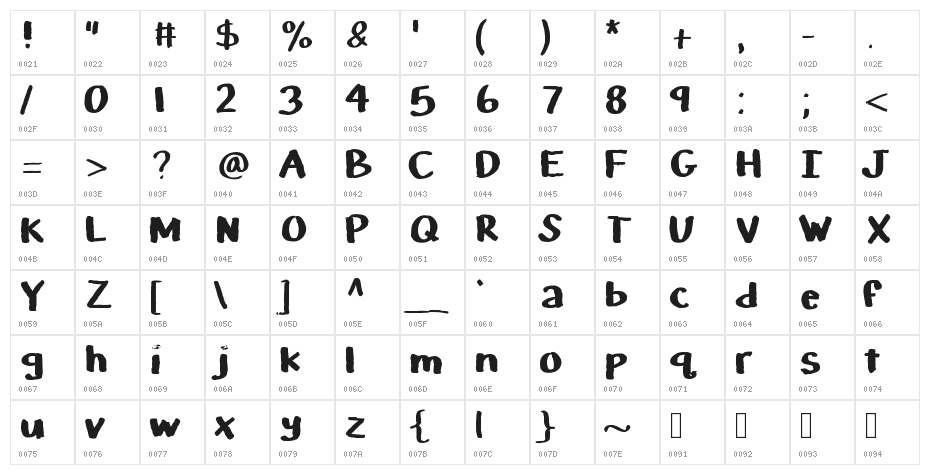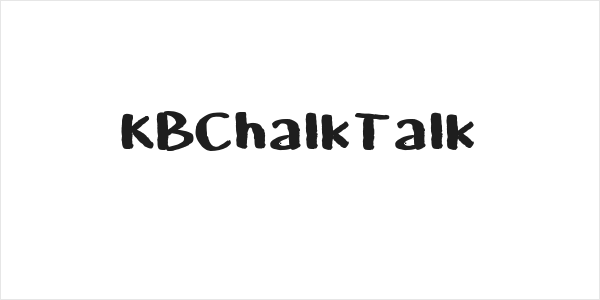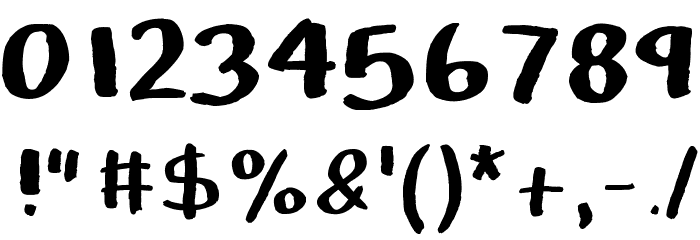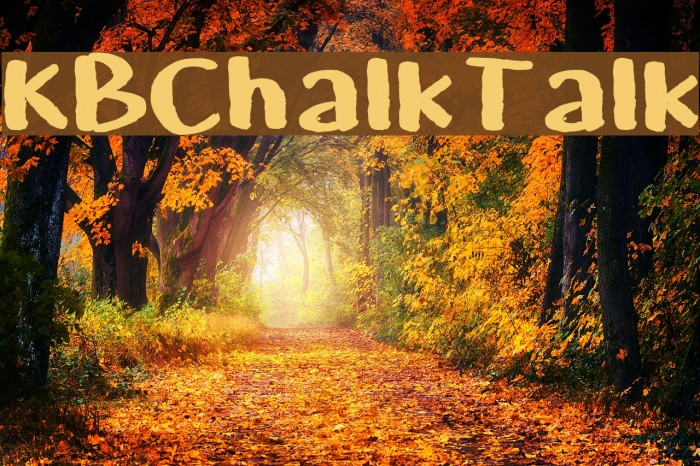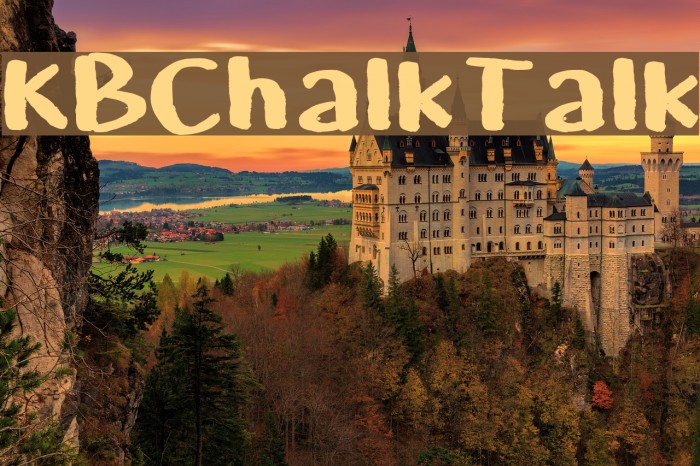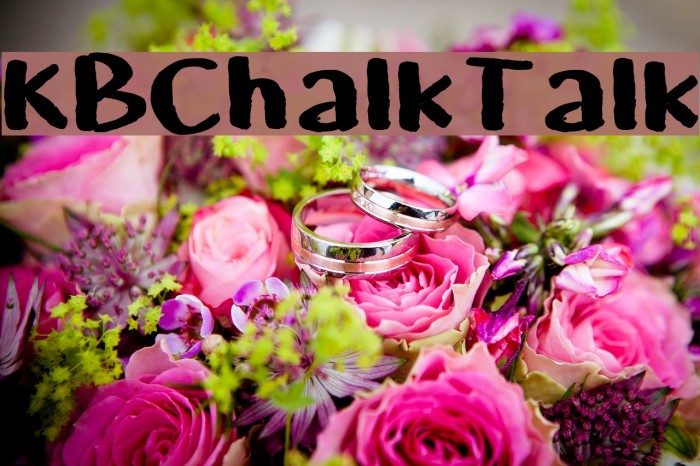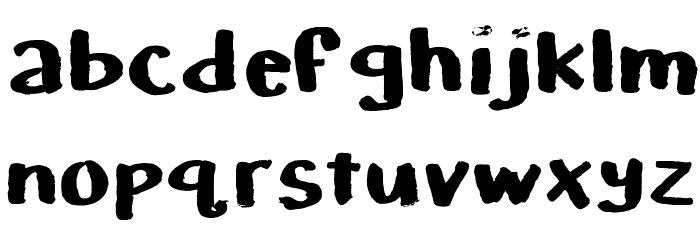
KBChalkTalk Font
KBChalkTalk Description
This font exudes a playful and informal vibe, reminiscent of chalk writing on a blackboard. The characters are bold and slightly irregular, giving them a hand-drawn appearance. The strokes are thick and consistent, with rounded edges that soften the overall look. This style is particularly effective in conveying a casual, friendly tone. The uppercase and lowercase letters maintain a uniform height, while the numbers and special characters integrate seamlessly with the alphabet, ensuring versatility in various applications.
| Proposed Projects | Ideal for educational materials, children's books, playful branding, and casual event invitations. |